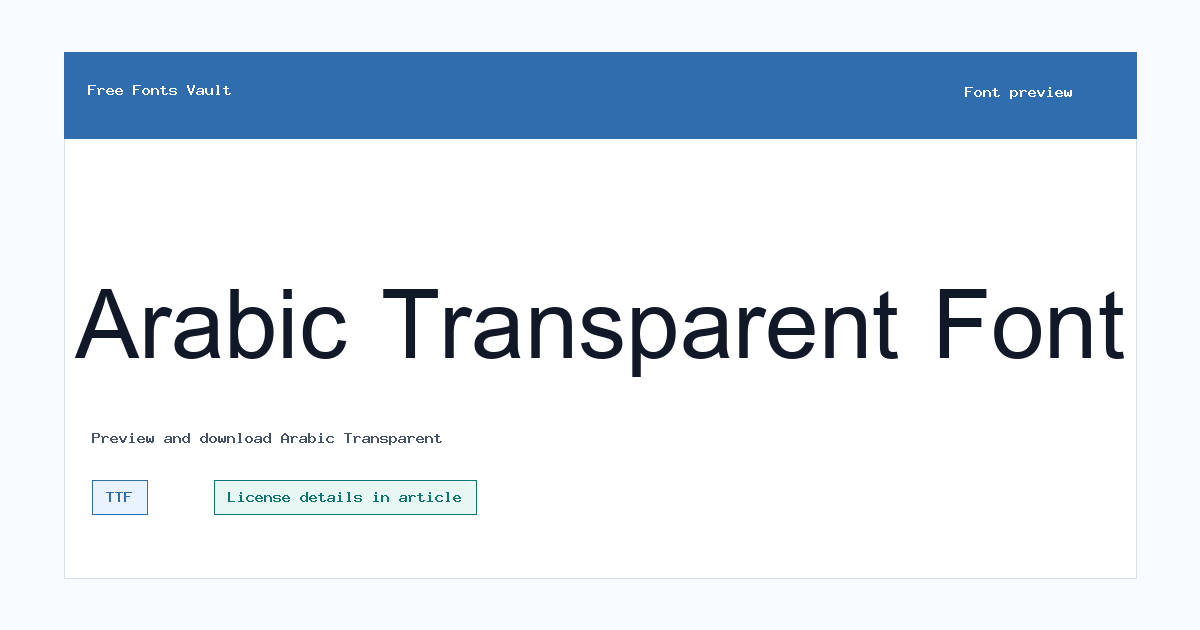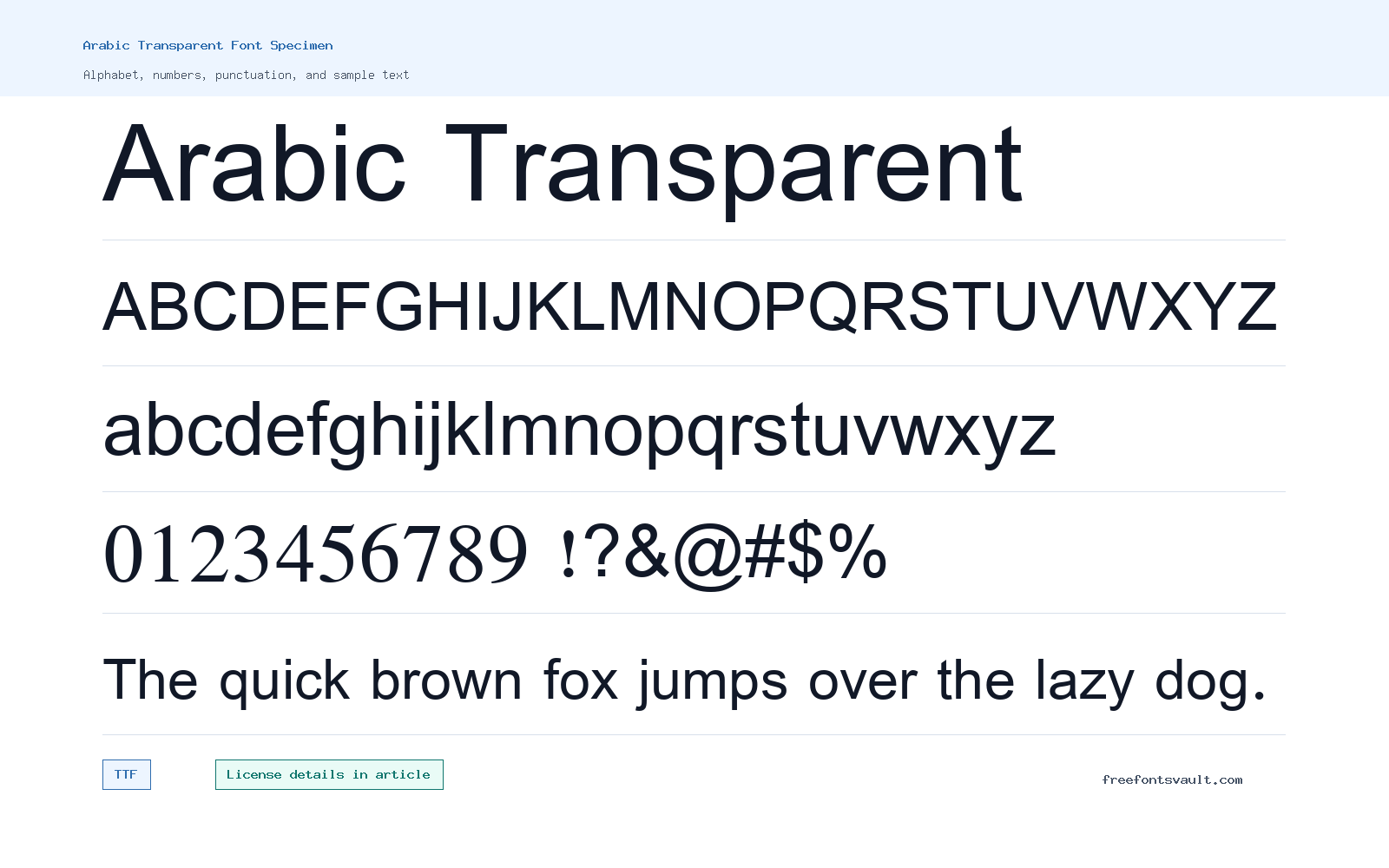
Arabic Transparent
Arabic Transparent is a clean Arabic typeface for readers who need a straightforward Arabic text font with a regular TrueType file for previewing and testing.
About Arabic Transparent
Arabic Transparent is identified by Microsoft Typography as an Arabic font family with regular and bold styles. Microsoft lists Artro.ttf for the regular style; this download uses Arabic-Transparent-Regular.ttf. The version on this page is a TrueType font in normal style with a 400 regular weight, making it best suited for testing standard Arabic text rather than heavy display typography.
Use the preview box to check how Arabic words, spacing, diacritics, and mixed Arabic-Latin text behave in your own sample. Because the available file here is the regular weight only, it is a better choice for body-style trials, labels, captions, interface mockups, and document previews than for bold headlines. If you need a complete family match, compare it with the bold style through an official licensing source.
• Normal style suitable for plain Arabic text previews
• Arabic document drafts and reading tests
• Interface mockups with Arabic labels
• Short Arabic captions and text samples
• Checking Arabic shaping, spacing, and legibility before licensing
What type of font is Arabic Transparent?
Arabic Transparent is an Arabic font family. This download contains the regular TrueType style with normal styling and 400 weight.